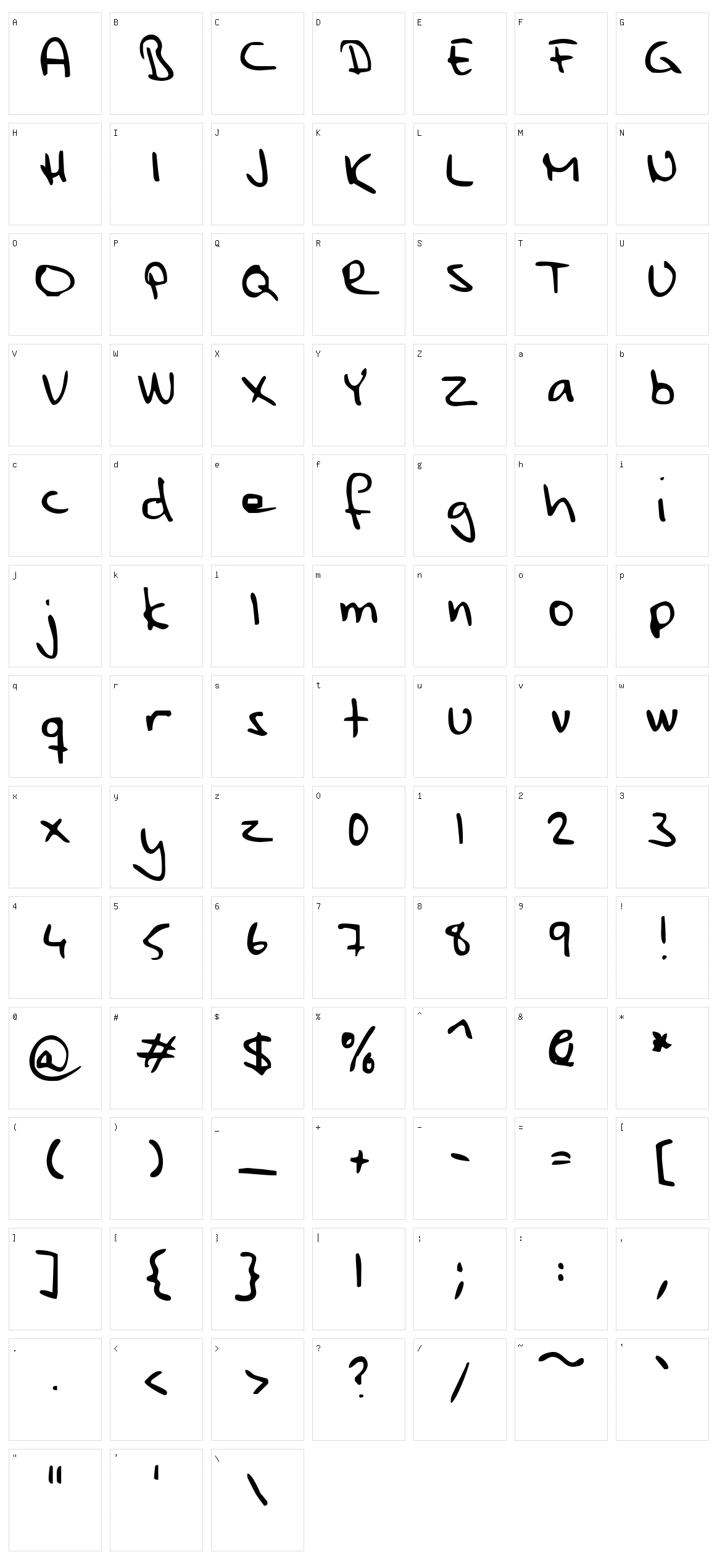
The free font Parne is carefully designed by Magnus Parnebring, showcasing a thoughtful balance of creativity and usability and falls under the Script font style. When you download the ZIP file, it contains only 20.95 KB of font files, making it lightweight and quick to download. Please review the license details below to understand permitted usage and distribution rights. If license information is not available, we recommend using this font for personal projects only or contacting the author directly for commercial usage permissions.
font by Magnus Parnebring